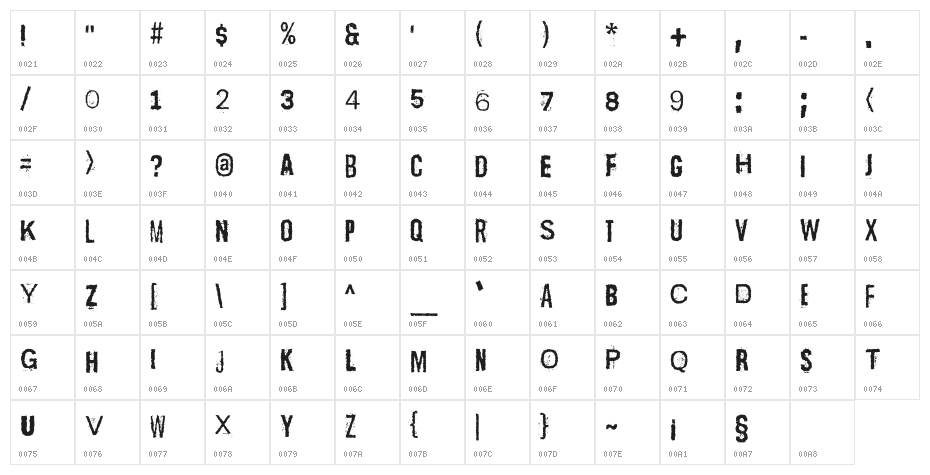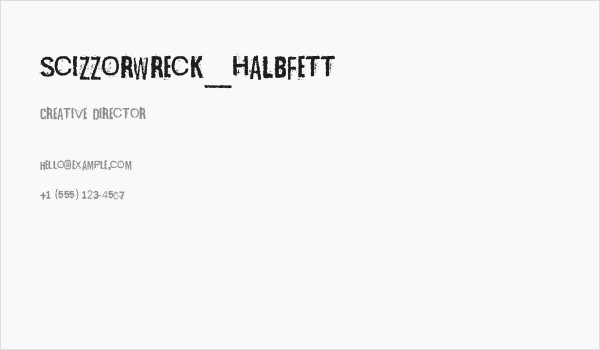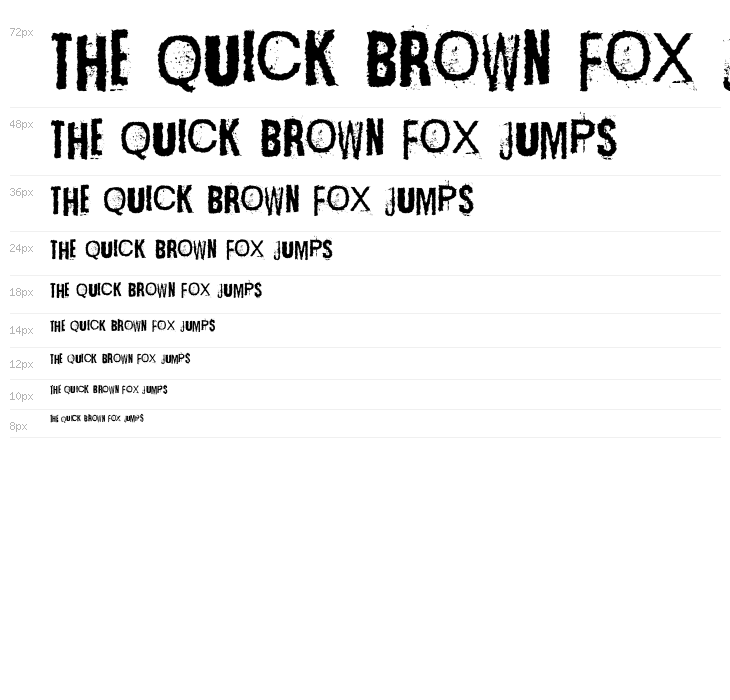
Scizzorwreck_Halbfett Font
Scizzorwreck_Halbfett Description
This font exhibits a distressed, grunge style with a bold and impactful presence. The characters are rough around the edges, giving them a textured and worn appearance. The uppercase letters are uniform in height, while the lowercase letters maintain a consistent style, contributing to a cohesive look. Numbers and special characters follow the same rugged aesthetic, making the font suitable for projects that require a raw, edgy feel. The overall design is reminiscent of vintage typewriter fonts but with a modern twist, adding character and depth to any design.
Overall StyleGrunge, Vintage
Proposed ProjectsIdeal for album covers, posters, branding for edgy or alternative products, and any design needing a vintage or grunge touch.